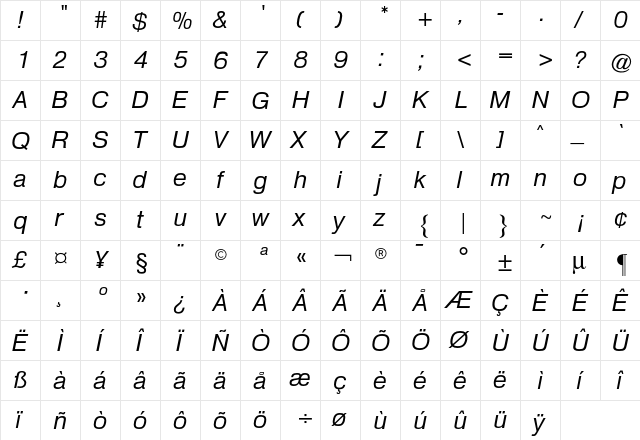
Heldustry CG Italic
| Foundry | Miles Inc |
Design Context for Heldustry CG Typeface
Heldustry CG offers clean, dependable letterforms without strong stylistic allegiance, making it a practical choice for designers who need flexibility. Its italic angle brings a sense of urgency and motion to the letterforms.
Pro Tip: Use Heldustry CG for emphasis, pull quotes, and subheadings where its slanted energy can add rhythm to the layout.